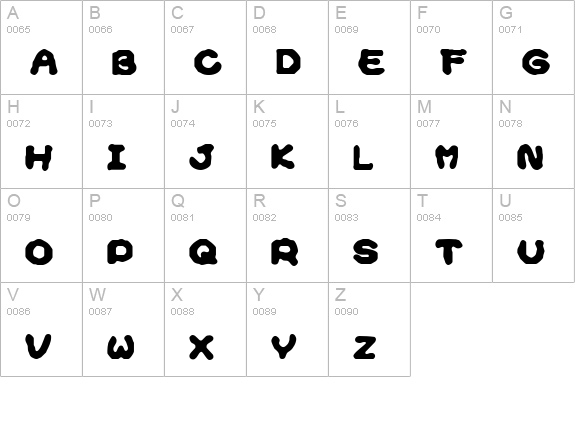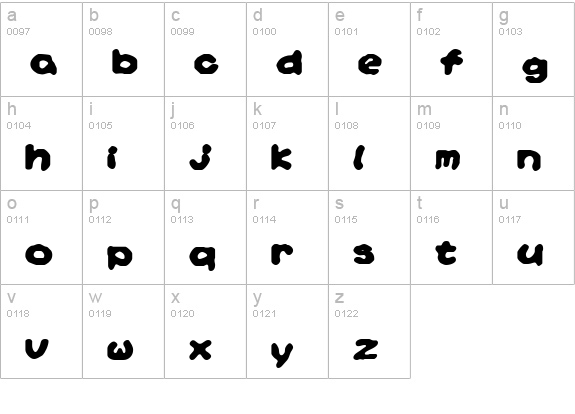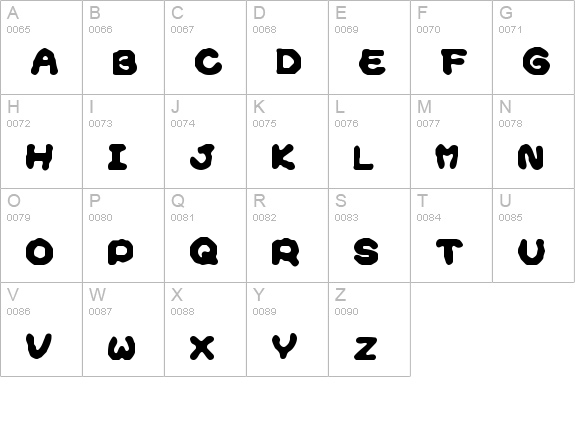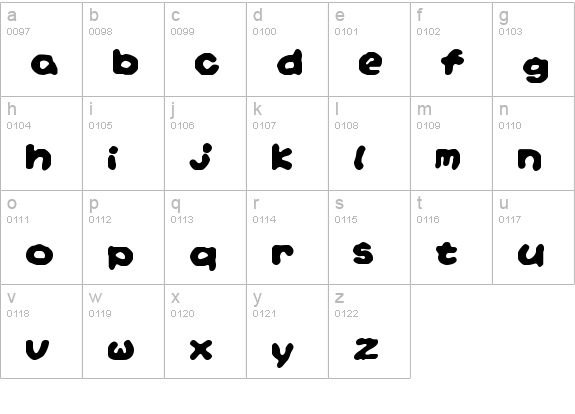
Yoshi's Story game text BRK Font Details
Embark on an enchanting adventure with Yoshi's Story game text BRK font! This charming and whimsical font captures the playful spirit of everyone's favorite dinosaur companion. Each character exudes a sense of childlike wonder and nostalgia, perfect for adding a touch of magic to your projects. Whether you're designing a birthday invitation, creating a poster for a children's event, or simply adding a fun twist to your graphics, Yoshi's Story game text BRK font is sure to bring smiles to faces of all ages. The friendly and inviting letterforms make it a joy to work with, allowing you to easily convey a sense of warmth and joy in your designs. Best of all, Yoshi's Story game text BRK font is freely available to download at FontsMarket.com. So go ahead and unleash your creativity with this delightful font - let your imagination run wild and bring a touch of whimsy to your next project!